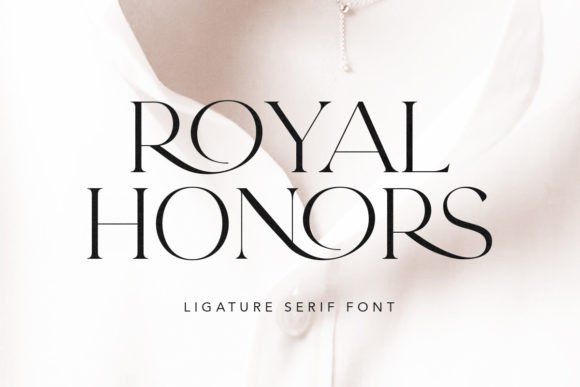
Introducing the Royal Honors Font, the perfect addition to your font collection! Created by baletype, this modern and elegant serif font is bound to leave a lasting impression. Let us take you on a journey of sophistication and allure, as we delve into the captivating features of this amazing typeface.
Are you in search of a font that will add a touch of elegance to your wedding envelopes? Look no further! Royal Honors Font is the ultimate choice for Font For Wedding Envelopes. Its exquisite ligatures will transform your invitations into timeless works of art. Imagine your guests' faces lighting up as they receive your beautifully designed envelopes, setting the tone for a truly memorable occasion.
But that's not all – Royal Honors Font is versatile and can be used for a myriad of projects. Whether you're working on a branding project, designing a captivating logo, creating a stunning magazine layout, or adding inspiring quotes to your social media posts, this font has got you covered. Its lowercase and uppercase ligatures exude elegance, giving your designs a unique and sophisticated edge.
We understand the importance of captivating your audience and standing out from the crowd. Royal Honors Font offers an extensive range of ligatures, allowing you to create visually stunning compositions that will leave a lasting impression on your viewers. With this font, your projects will exude professionalism and refinement, ensuring that your message is conveyed with utmost clarity and style.